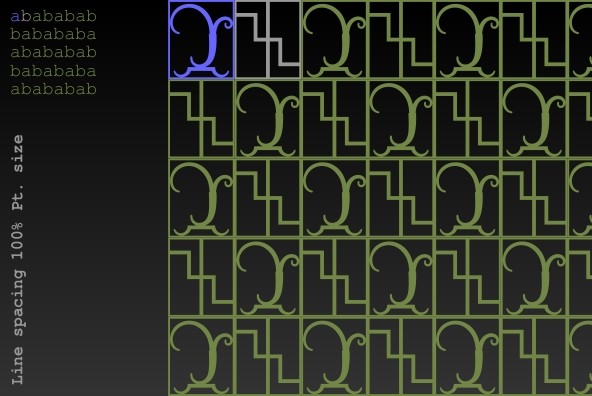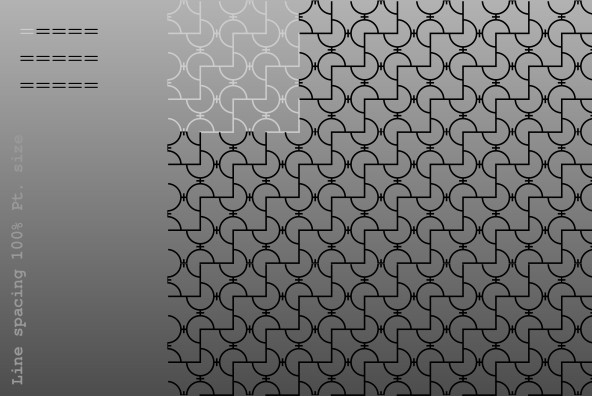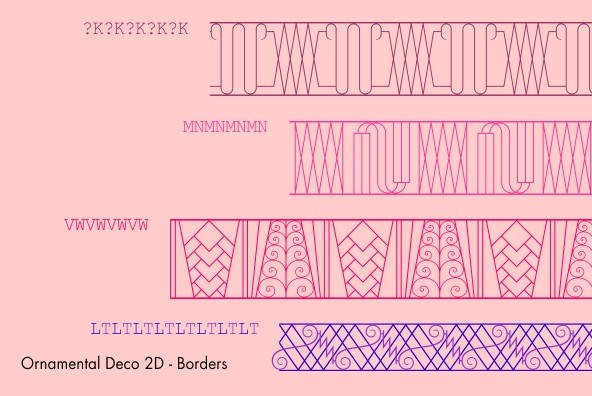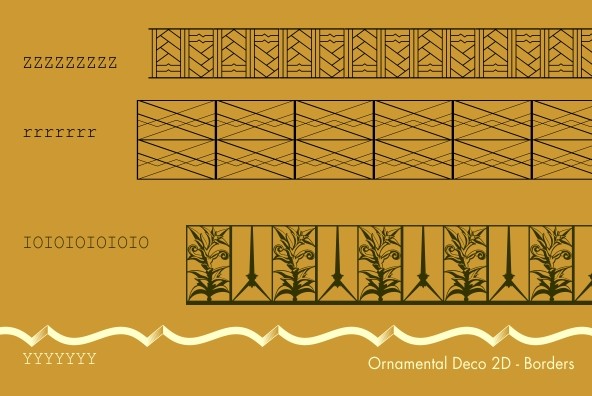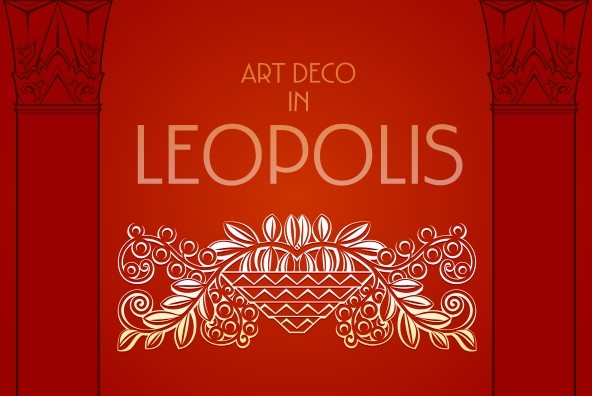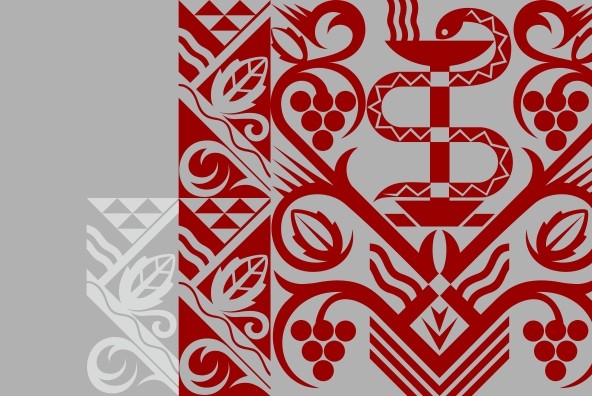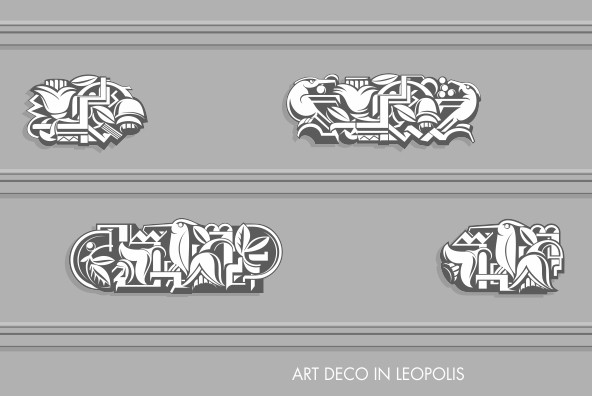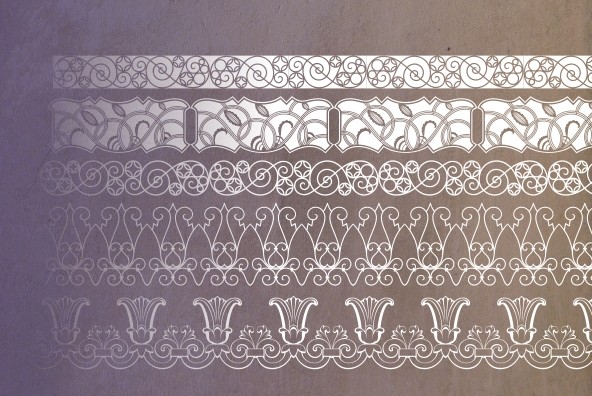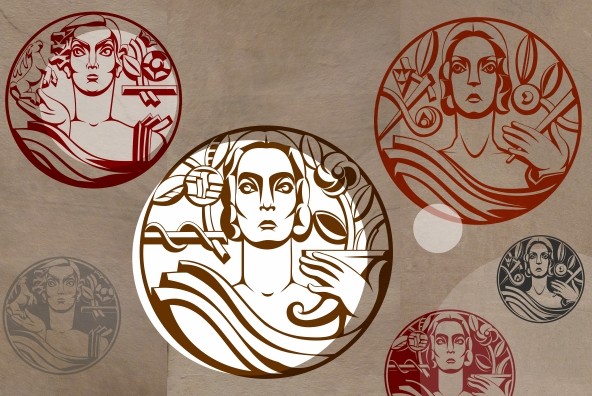
Ornamental Deco 2D
This font was inspired by Lviv ArtDeco architecture dominating in 1920s-30s. This collection of ornaments is a graphic representation of building decorative elements, mostly of metal tracery elements and wall bas-relief. This font can be used for a variety of purposes, in graphic design as well as in industrial design.